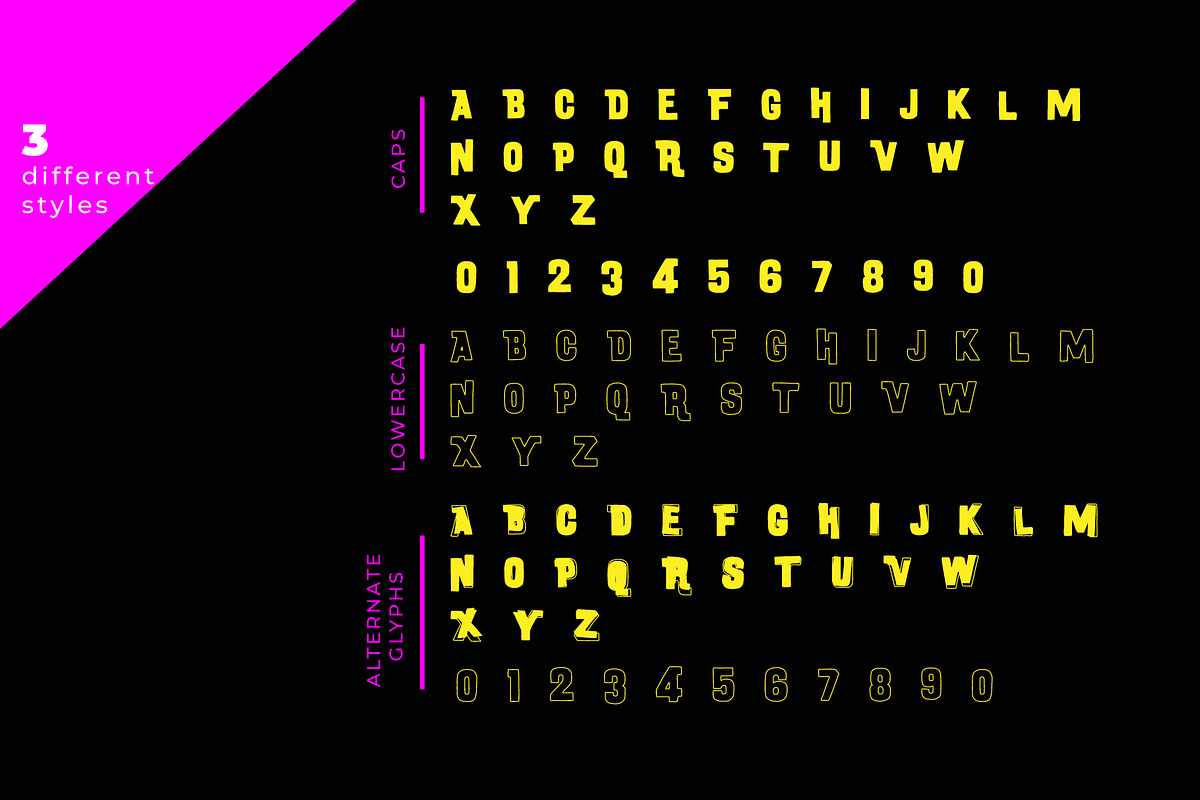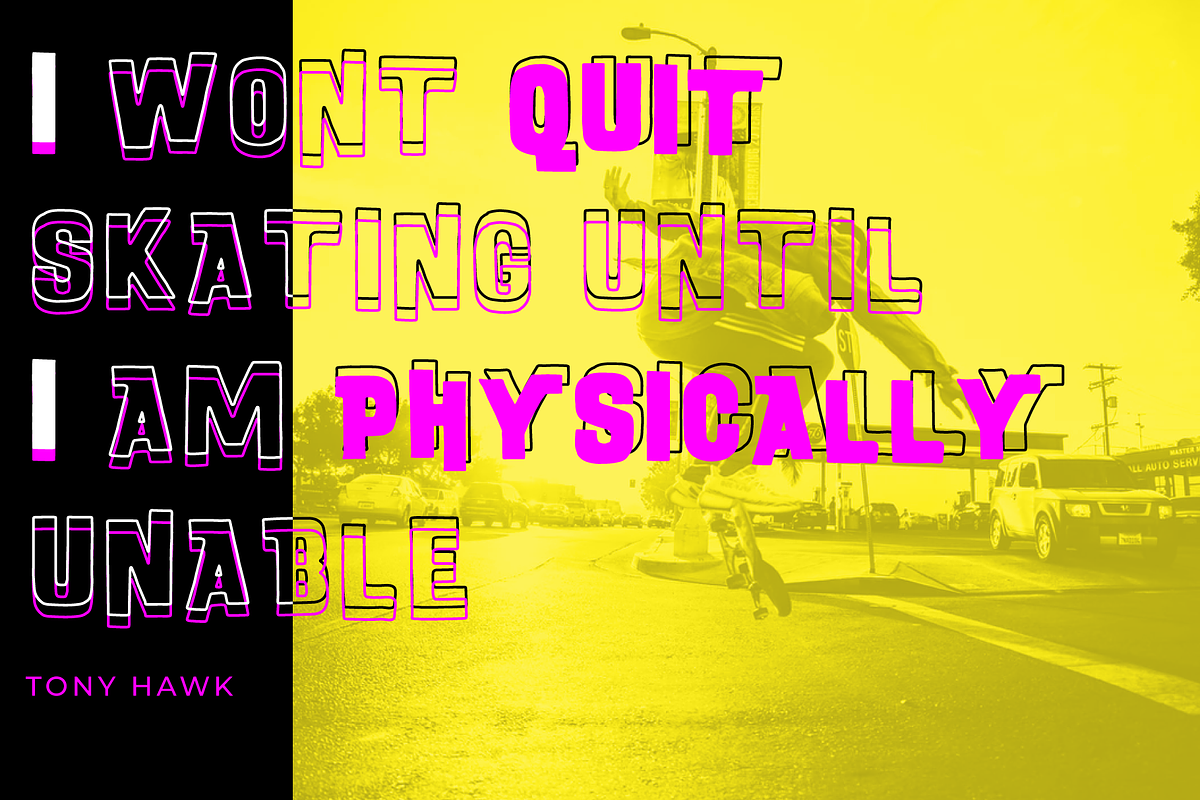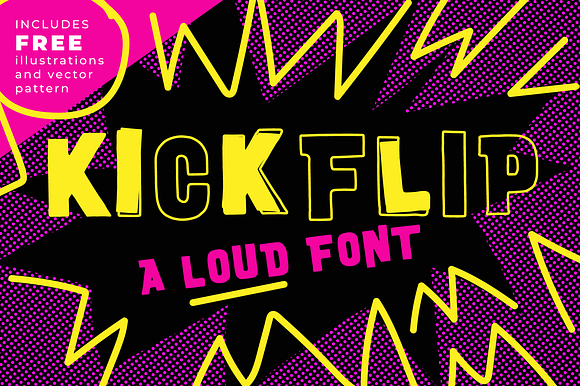
KICKFLIP handmade punk rock font
I found this typeface in a very old book and wanted to bring new life to it. It immediately brought to mind vibes of growing up skating and the aggressiveness of punk rock basement shows. ENJOY IT!
Suggested uses : tee shirts, posters, magazine headlines, sales page headlines...